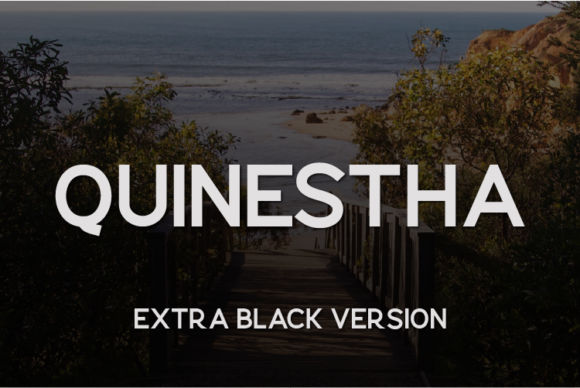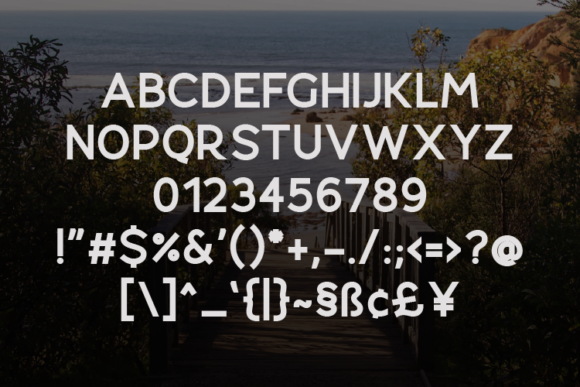
HomeSans Serif FontsQuinestha Extra Black Font Sans Serif Fonts Quinestha Extra Black Font FacebookXPinterestWhatsApp Quinestha Extra Black Font 1 of 2 About Quinestha Extra Black Font Quinestha is simple but elegant and defined by its crisp edges and modern touches. It is designed for optimal legibility and works great in branding, logos, headlines, high fashion and much more! DOWNLOAD NOW People also explored Sattinda Font Happy Banana Font Starlight Font Flalkner Font Daring Font Ballerina Font Anggraini Attaya Font Eroded Vintage Font 291 0 TagsQuinestha Extra Black Font Previous articleQuinestha Black FontNext articleHunte Thin Font LEAVE A REPLY Cancel reply Comment: Please enter your comment! Name:* Please enter your name here Email:* You have entered an incorrect email address! Please enter your email address here Website: Save my name, email, and website in this browser for the next time I comment. Personal Use Free Ammanda Personal Use Free Read more about this font Love Memories Personal Use Free Read more about this font Authurium Personal Use Free Read more about this font Written by Hand Personal Use Free Read more about this font BLOG Using Fonts in Digital Marketing: Tips to Strengthen Your Brand Identity In the realm of digital marketing, every visual element plays a crucial role in shaping a brand's identity, and fonts are no exception. The... Best Fonts for YouTube Videos: Make Your Thumbnails Stand Out Free Fonts Risk: Why Free Fonts Can Be Dangerous for Designers Fonts That Capture the Spirit of New York City